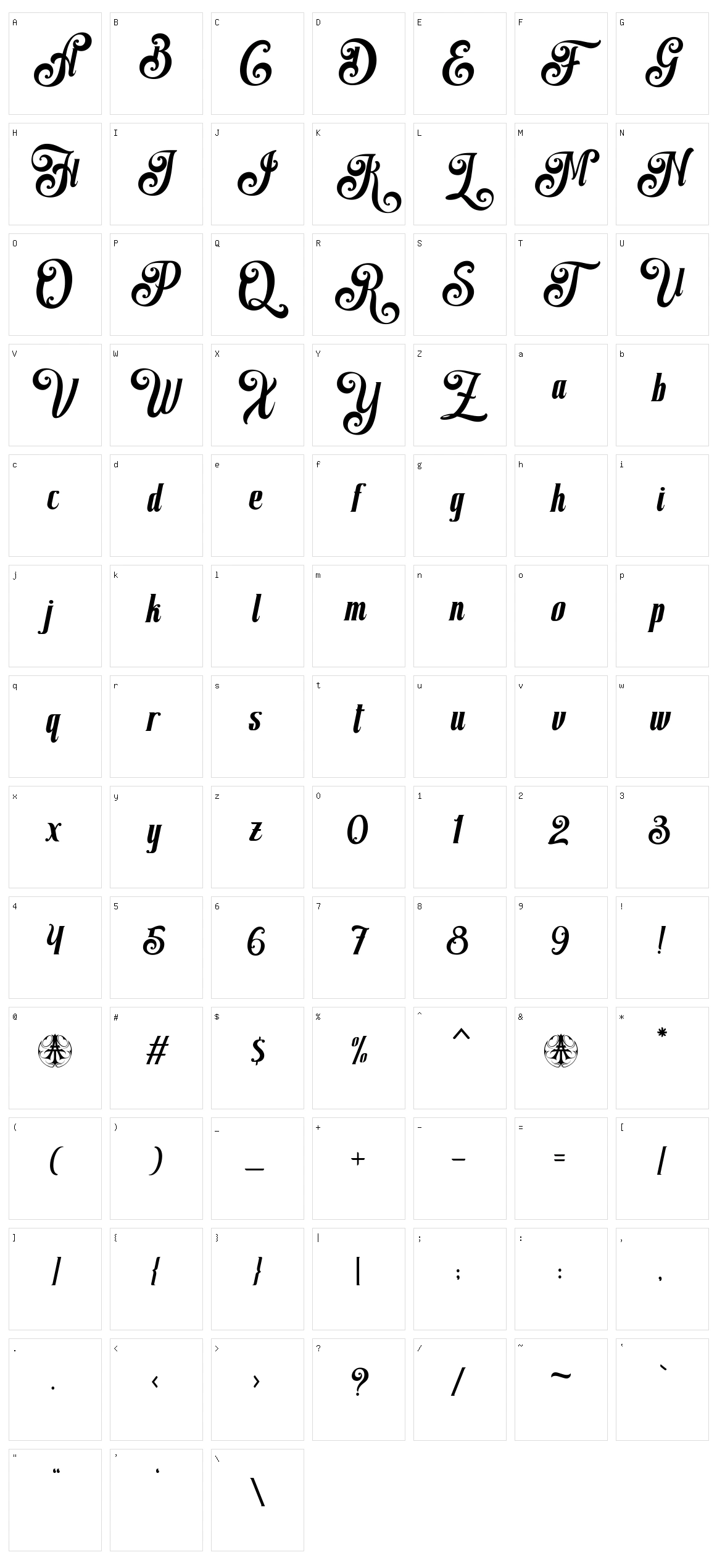
The free font Rubra Costa is carefully designed by ilhamtaro, showcasing a thoughtful balance of creativity and usability and falls under the Old-School font style. When you download the ZIP file, it contains only 25.5 KB of font files, making it lightweight and quick to download. Please review the license details below to understand permitted usage and distribution rights. If license information is not available, we recommend using this font for personal projects only or contacting the author directly for commercial usage permissions.